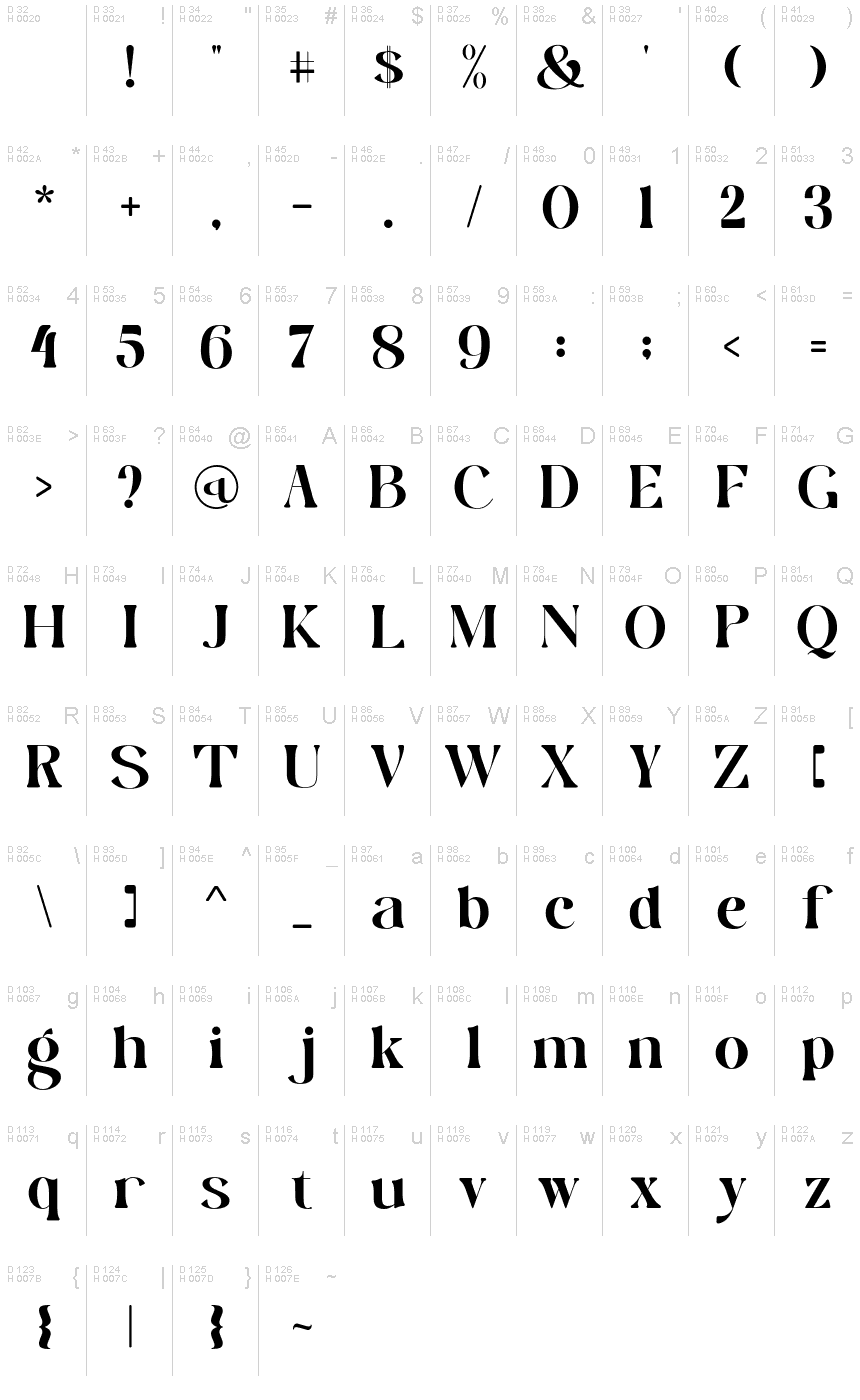
WONDER SEASON
Wonder Season, crafted by Toni Studio, is a captivating serif font that exudes elegance and sophistication.
With its semi-bold weight and semi-expanded width, it strikes the perfect balance between strength and versatility. This typeface is ideal for projects that require a touch of refinement. From luxurious branding to editorial designs, Wonder Season adds an air of grace to any project. Its timeless appeal makes it suitable for book covers, wedding invitations, and high-end fashion magazines.